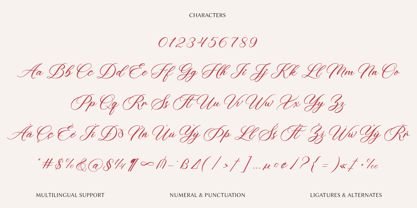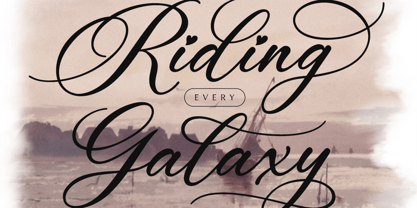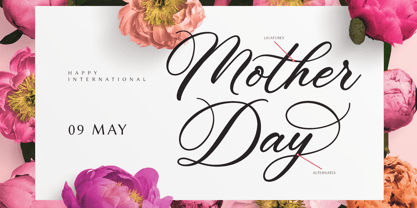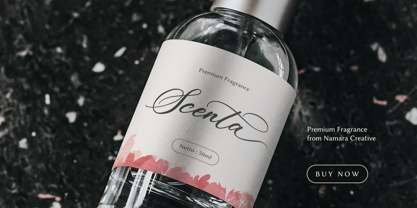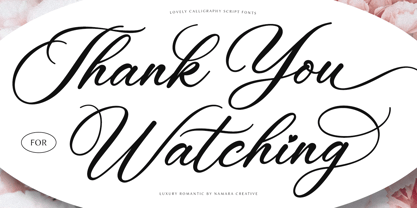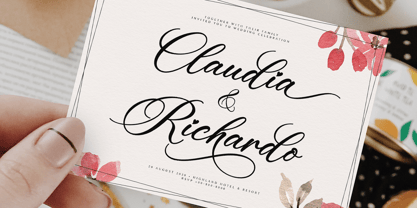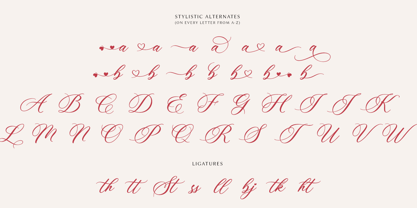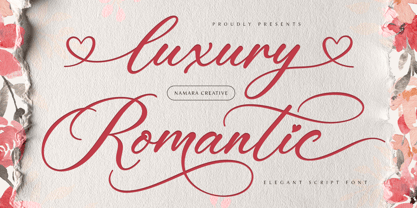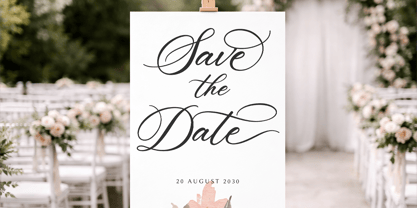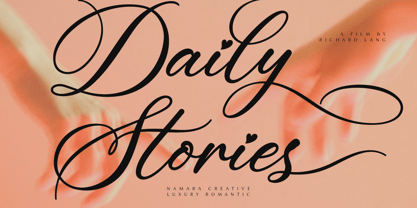
Luxury Romantic
Die Schriftfamilie Luxury Romantic wurde von Eep Apringga entworfen und von Namara Creative Studio veröffentlicht. Luxury Romantic enthält 1 Stile. Mehr über diese Familie
Luxury Romantic is a premium elegant script font designed by Namara Creative — a font that effortlessly blends classic calligraphy with modern design sensibility. Every curve, swash, and stroke has been carefully crafted to evoke warmth, romance, and refined luxury.
With its signature heart-shaped dot accents, sweeping capital swashes, and rich glyph library, Luxury Romantic stands apart as a truly distinctive typeface. This isn’t just a font, it’s a design experience.
Key Features :
• Stylistic Alternates on Every Letter : Up to 7 alternate forms per character, giving you extraordinary flexibility to customize the look of your text and avoid repetitive letterforms.
• Built-in Ligatures : Includes beautiful pre-designed ligature pairs,automatically connecting letters for a natural, hand-lettered feel.
• Heart-Shaped Dot Details : Unique heart accents on select lowercase letters and capital letters, adding a signature romantic touch that makes this font instantly recognizable.
• Numeral, Punctuation & Multilingual Support : Complete set of numerals and an extensive range of punctuation, special characters, extended Latin character support with accented glyphs, making it usable across multiple languages and international markets.